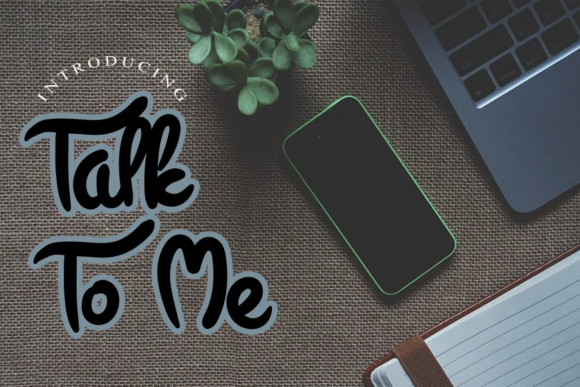
About Talk to Me Font
Talk to Me is a sweet, all round and smooth handwritten font. Warm, romantic and jolly, this font will turn each of your project ideas into real works of art. Have fun with this beautiful font and explore its endless variations.